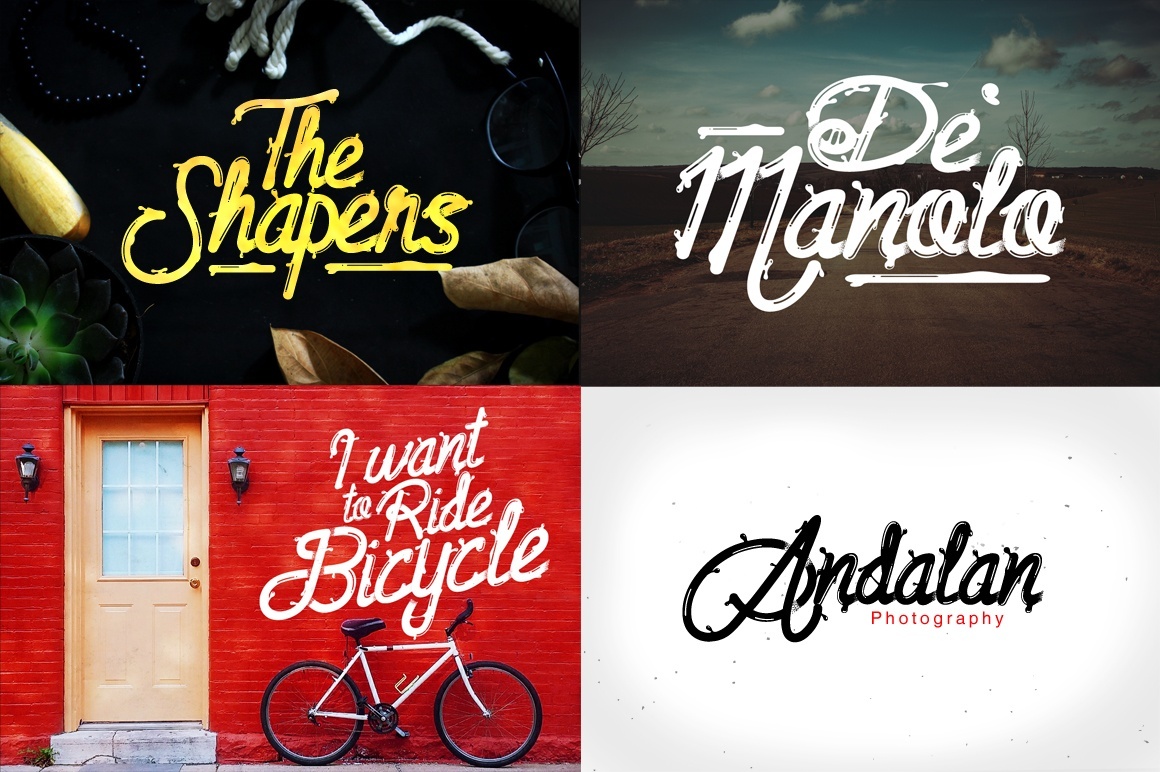
Dianjuli Typeface
Dianjuli is a handpainted typeface that inspired from  with a customible style it’s perfect for creating Mural, a headline, logotype, and t-shirt/ apparel design it’s easy to use in any software or device. The characteristic of Dianjuli is rough underground inspired from urban art, tattoo, grafitti style with the unique handmade touch characteristic.